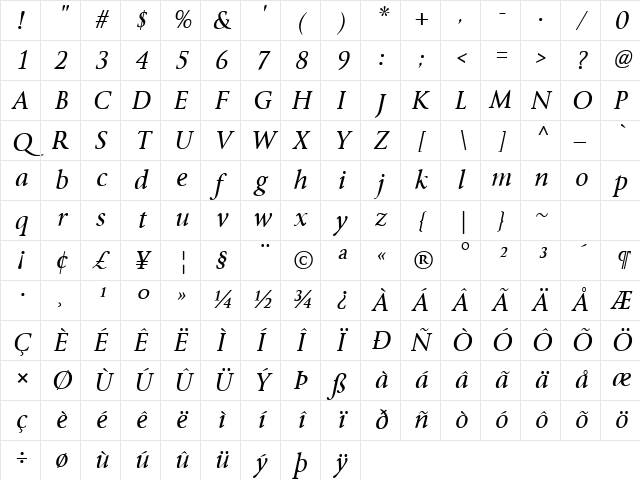
Byington Italic Free Font
Byington Italic
Byington Family
Design Context for Byington
Byington is a composed and adaptable typeface that performs quietly and consistently across a wide range of design contexts. The slanted form adds forward momentum and visual energy.
Pro Tip: Use Byington for emphasis, pull quotes, and subheadings where its slanted energy can add rhythm to the layout.